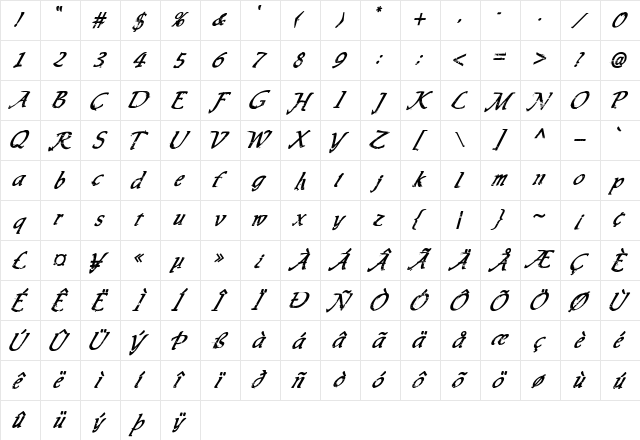
LD Puck Regular
Design Context for LD Puck Typeface
LD Puck is a composed and adaptable typeface that performs quietly and consistently across a wide range of design contexts.